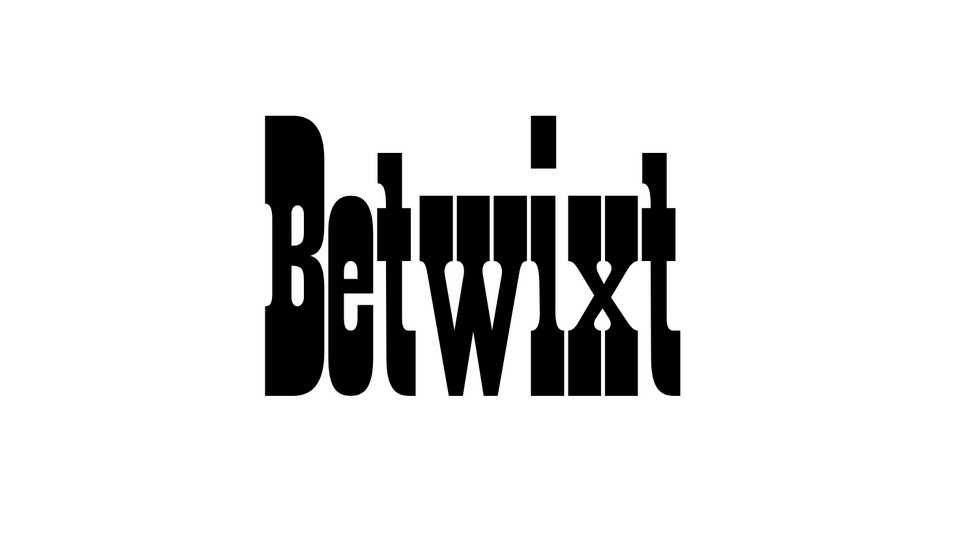
Download Betwixt font, a decorative reverse contrast typeface inspired by the unique wooden characters distributed by the Caslon & Cie foundry.
Designer: Héra Mahseredjian